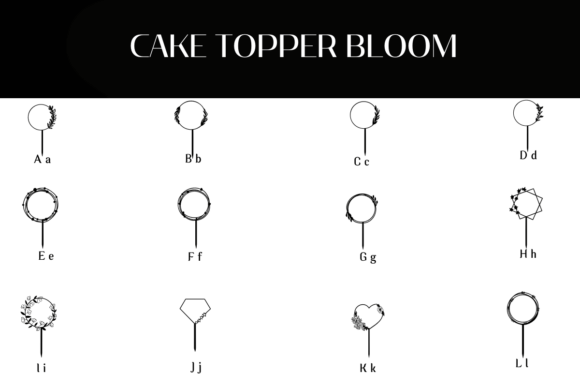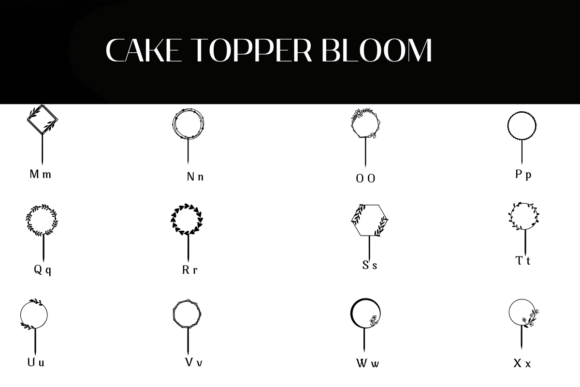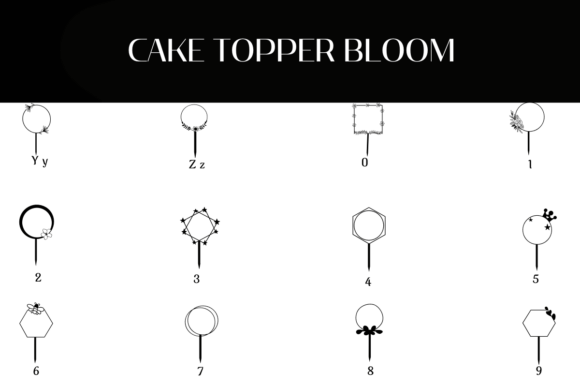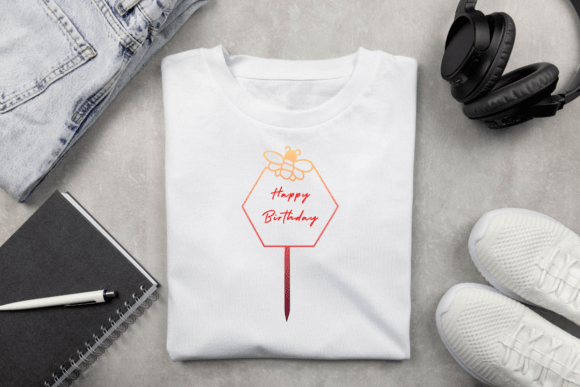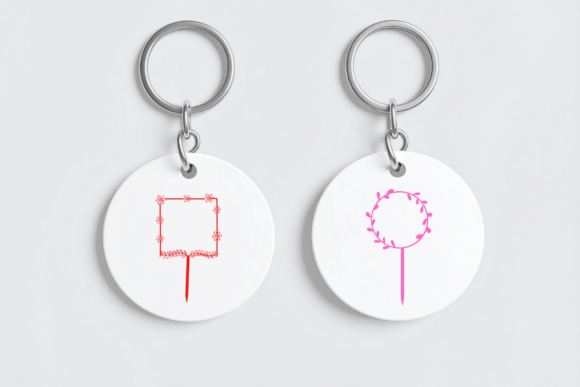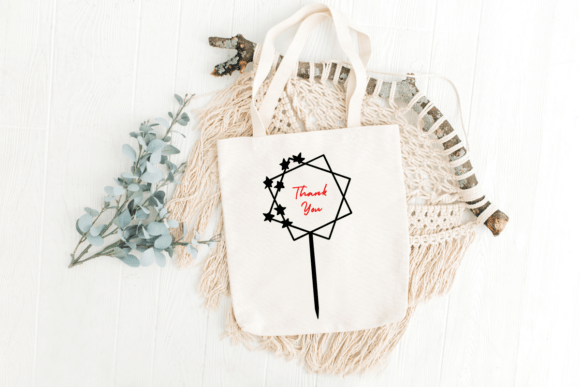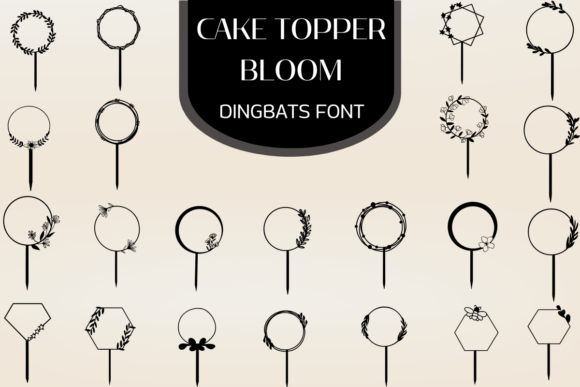
Cake Topper Bloom Font: The Perfect Addition to Your Design Arsenal
Are you a designer, crafter, or DIY enthusiast looking for a unique and versatile font to elevate your creative projects? Look no further than Cake Topper Bloom Font, a delightful Dingbats font that can add a touch of whimsy and charm to your designs. In this article, we’ll explore the features and uses of Cake Topper Bloom Font, and how it can become a valuable addition to your design toolkit.
What is Cake Topper Bloom Font?
Cake Topper Bloom Font is a Dingbats font, which means it’s a type of font that features decorative symbols, shapes, and illustrations rather than traditional letters and numbers. This font is perfect for designers and crafters who want to add a personal touch to their projects, such as handmade cards, party decorations, and social media graphics.
Uses of Cake Topper Bloom Font
Cake Topper Bloom Font is an incredibly versatile font that can be used for a wide range of projects, including:
- Handwritten notes and journals: Add a touch of elegance and sophistication to your handwritten notes and journals with Cake Topper Bloom Font.
- Greeting cards and invitations: Create beautiful and unique greeting cards and invitations for special occasions, such as birthdays, weddings, and holidays.
- Banners and signs: Use Cake Topper Bloom Font to create eye-catching banners and signs for parties, events, and promotions.
- Social media graphics: Add a personal touch to your social media graphics, such as Facebook posts, Instagram stories, and Twitter headers.
- Mugs, cards, and shirts: Create customized products, such as mugs, cards, and shirts, with Cake Topper Bloom Font.
- Stationery and paper crafts: Use Cake Topper Bloom Font to create beautiful stationery, paper crafts, and other DIY projects.
Benefits of Using Cake Topper Bloom Font
So, why should you choose Cake Topper Bloom Font for your design projects? Here are just a few benefits:
- Unique and eye-catching designs: Cake Topper Bloom Font features beautiful, intricate designs that will make your projects stand out.
- Versatile: Cake Topper Bloom Font can be used for a wide range of projects, from handmade cards to social media graphics.
- Customizable: You can use Cake Topper Bloom Font to create customized products, such as mugs, cards, and shirts.
Tips for Using Cake Topper Bloom Font
Here are a few tips for getting the most out of Cake Topper Bloom Font:
- Experiment with different sizes and colors: Try out different sizes and colors to see what works best for your project.
- Combine with other fonts: Combine Cake Topper Bloom Font with other fonts to create a unique and eye-catching design.
- Use for decorative elements: Use Cake Topper Bloom Font to create decorative elements, such as borders, frames, and icons.
Cake Topper Bloom Font is a versatile and beautiful Dingbats font that can add a touch of whimsy and charm to your design projects. With its wide range of uses, ease of use, and customizable designs, it’s the perfect addition to your design toolkit. Whether you’re a designer, crafter, or DIY enthusiast, Cake Topper Bloom Font is sure to become a favorite font in your collection.